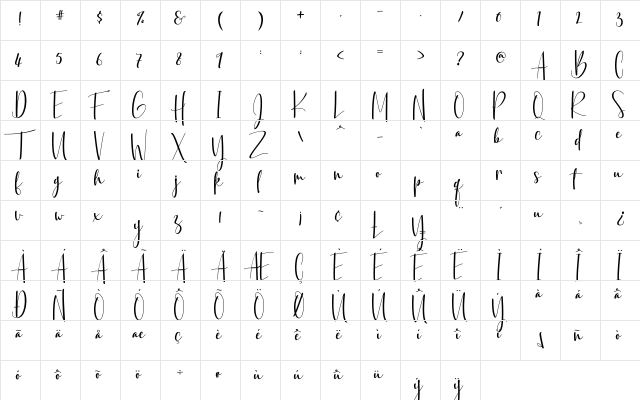
Basyar Jalai Regular
| Foundry | Alif Quentin |
| Designer | Latifah |
Design Context for Basyar Jalai Typeface
Basyar Jalai is a composed and adaptable typeface that performs quietly and consistently across a wide range of design contexts.